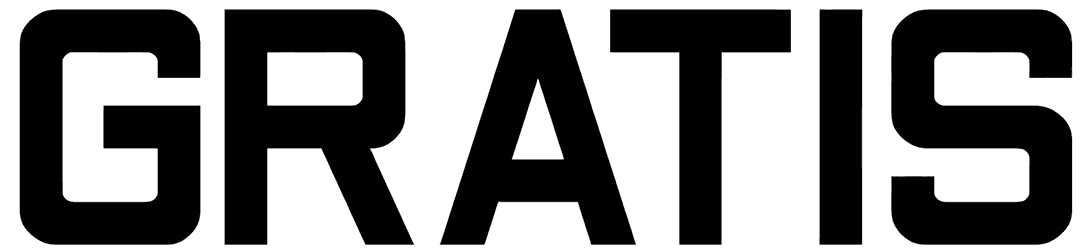
Gratis Font
If you are searching for a bold font with a modern futuristic mood, Gratis is able to gratify you. This techno font with its salient face has two sets of uppercase, and one of them is decorated with details similar to computer codes, but there is no lowercase. Put Gratis on your subsequent projects like digital designs, posters, foregrounds, or similar things.